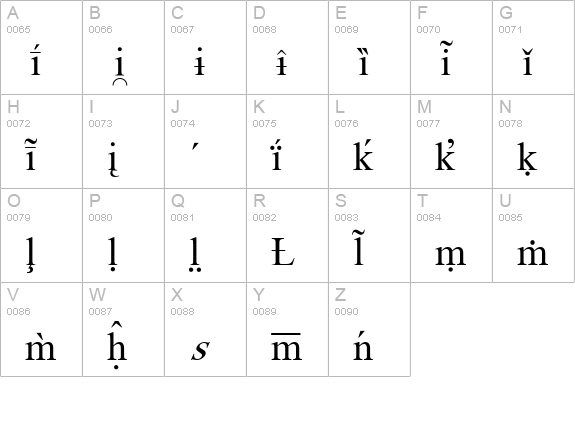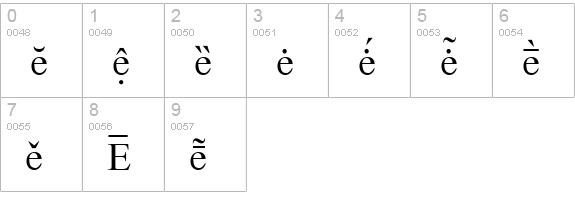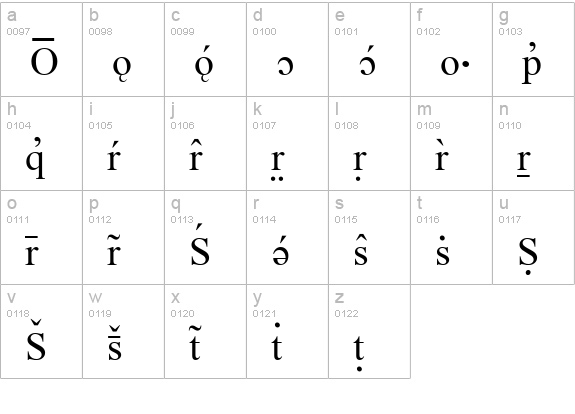
WP Accent Serif Font Details
WP Accent Serif is a stunning font that combines classic elegance with a modern twist. With its refined serifs and stylish curves, this typeface adds a touch of sophistication to any design project. Whether you're creating a logo, designing a website, or crafting a poster, WP Accent Serif will elevate your work to new heights. What makes WP Accent Serif even more appealing is that it is available for free! That's right, you can download this exceptional font without spending a single penny. Thanks to FontsMarket.com, you can freely access and enjoy the beauty of WP Accent Serif. This font offers a wide range of weights and styles, giving you the flexibility to choose the perfect variant for your project. From light and delicate to bold and impactful, WP Accent Serif has it all. Its versatility ensures that it can be used in various contexts, from formal documents to eye-catching headlines. The precise detailing and careful craftsmanship of WP Accent Serif make it a standout among other serif fonts. Every curve and stroke has been meticulously designed to create a harmonious and balanced typeface that captivates the eye. The legibility and readability of WP Accent Serif are exceptional, making it an excellent choice for both printed and digital media. With WP Accent Serif, your text will stand out and make a lasting impression. Its timeless appeal and contemporary flair make it suitable for both classic and modern designs. Whether you're aiming for a traditional or cutting-edge look, WP Accent Serif is the perfect companion. Don't miss out on the opportunity to enhance your designs with this exceptional font. Download WP Accent Serif for free at FontsMarket.com and unlock a world of creativity. With its premium quality and accessibility, WP Accent Serif is a must-have for designers, typographers, and anyone who appreciates the power of great typography.